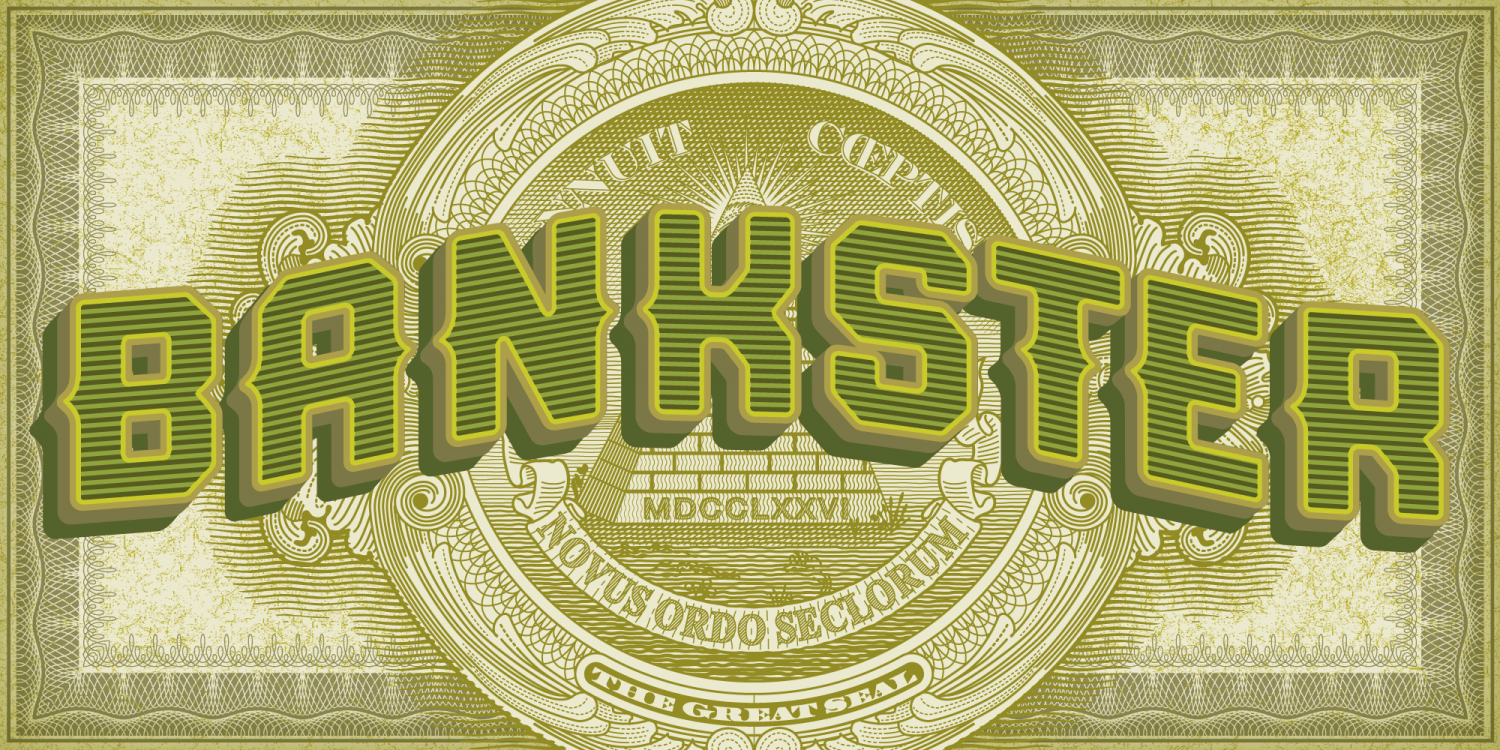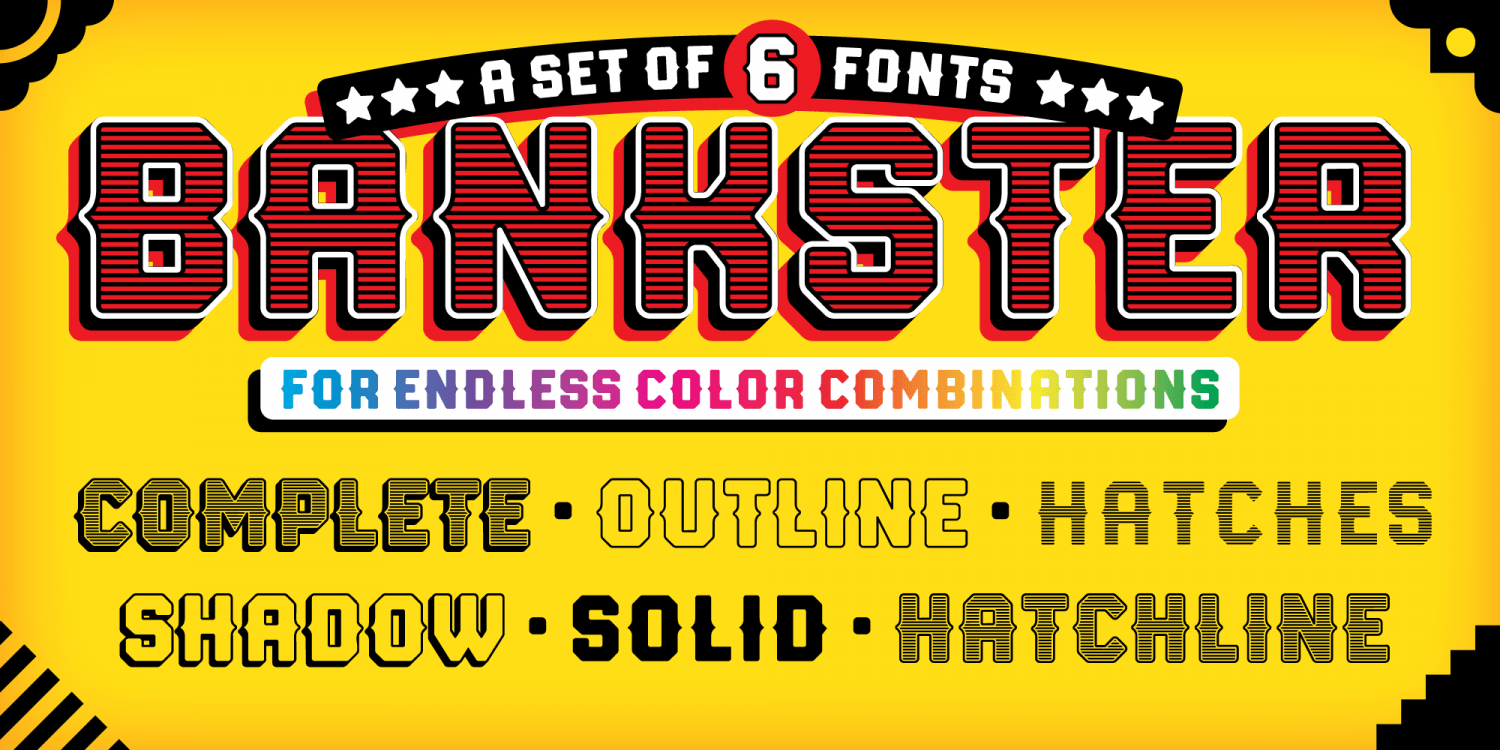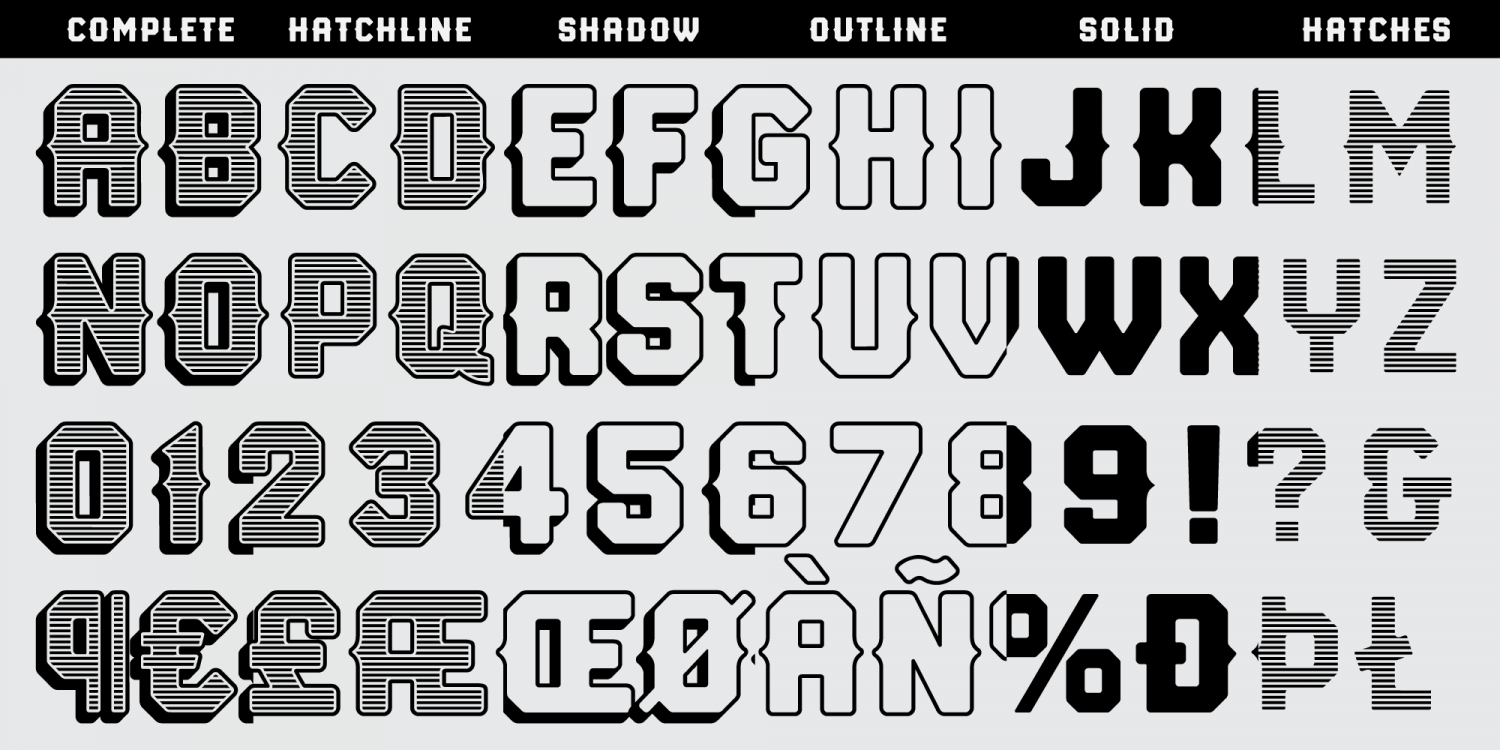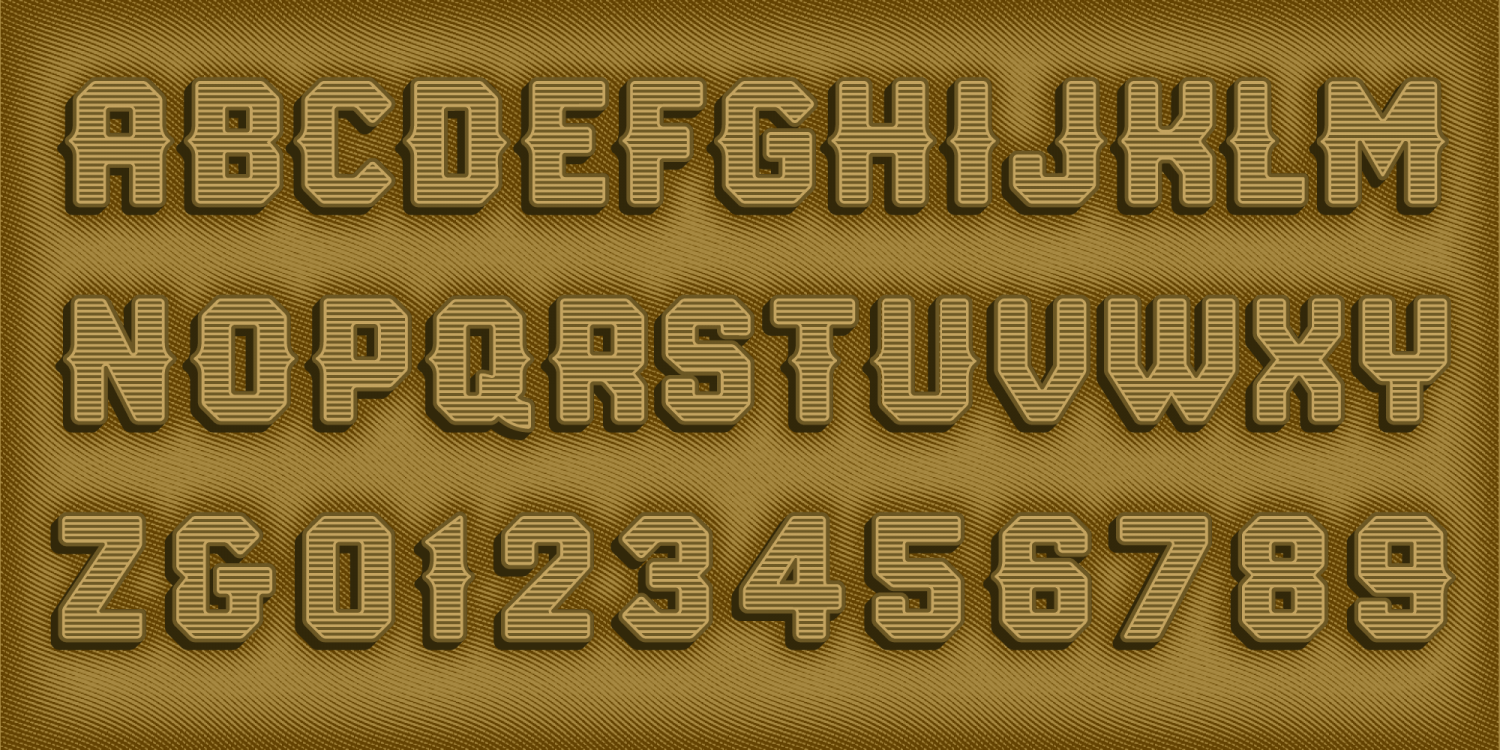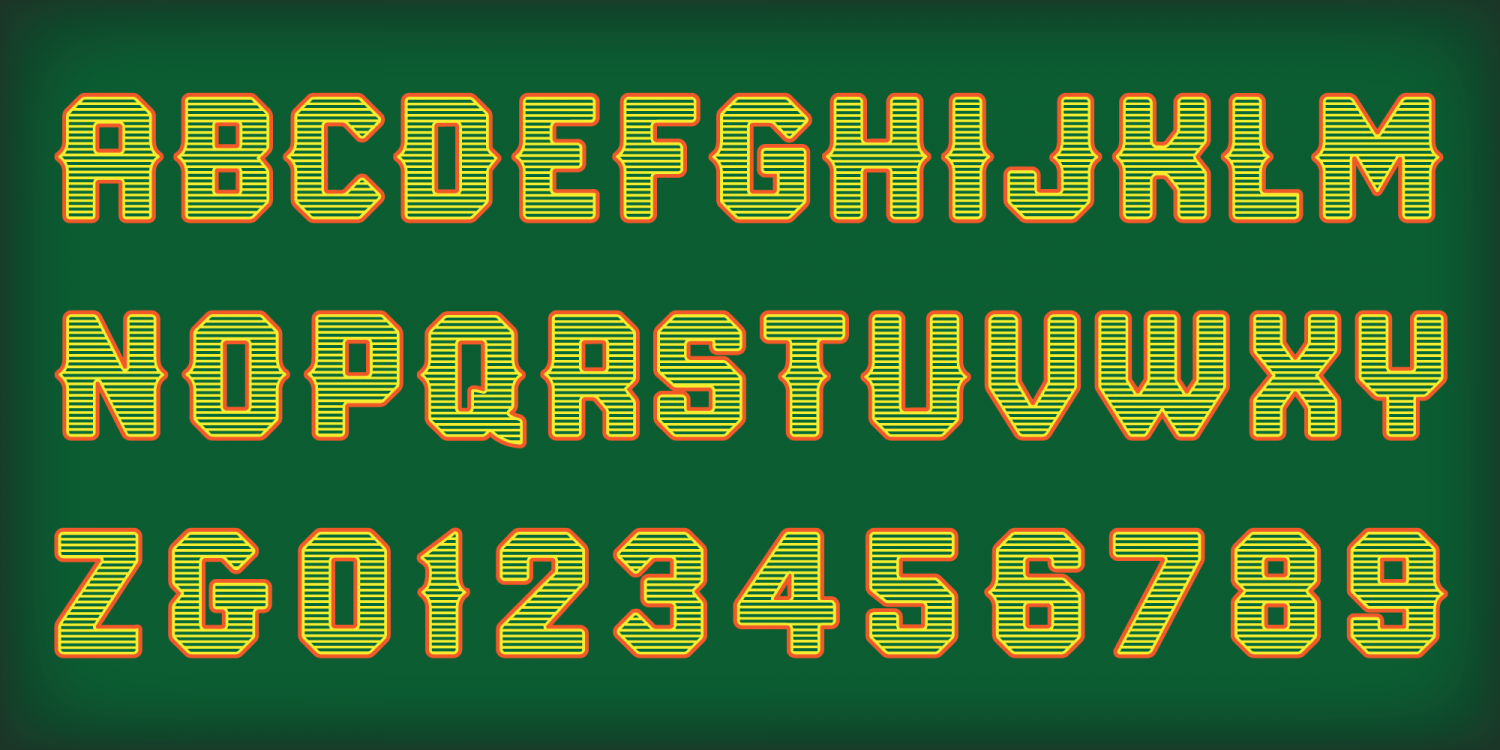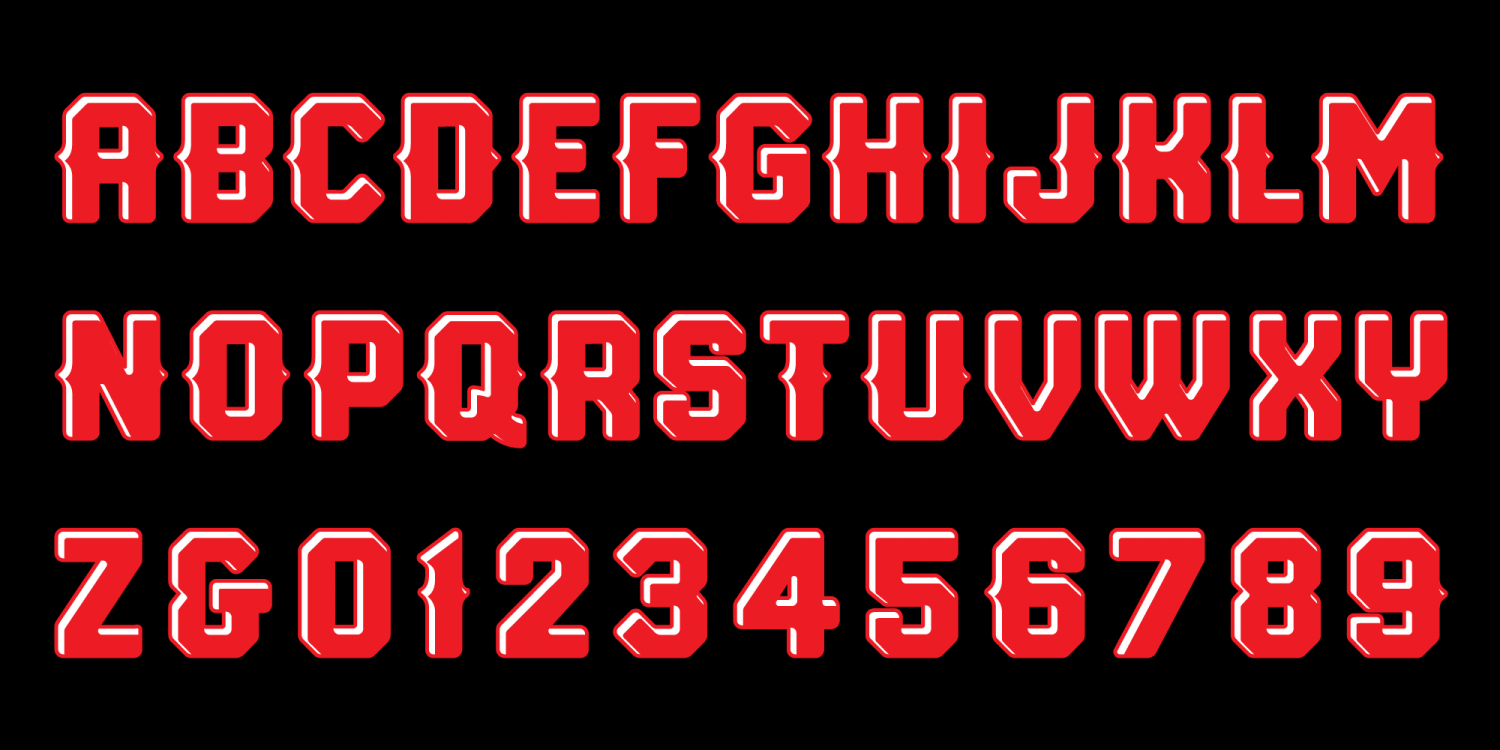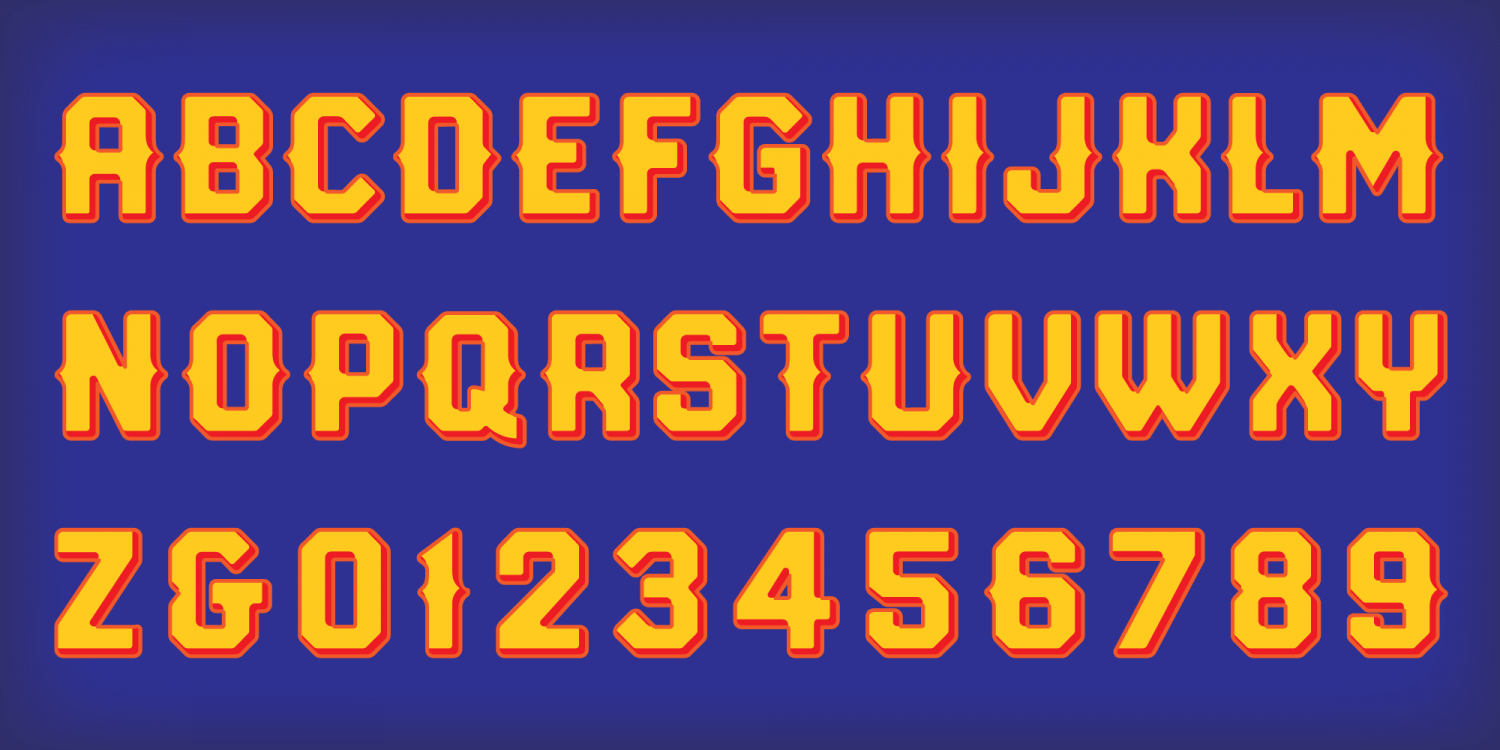
Bankster
With it's origins in a hand-lettered headline about money managers, Bankster is an alphabet meant to evoke the feelings of currency or financial documents. Multiple styles facilitate the perfectly registered layering of components in a variety of color combinations to enhance impact and provide an enriched dimensional experience. It not be for everyone but, it's a perfect solution for the designer who has no patience for boring type treatments.